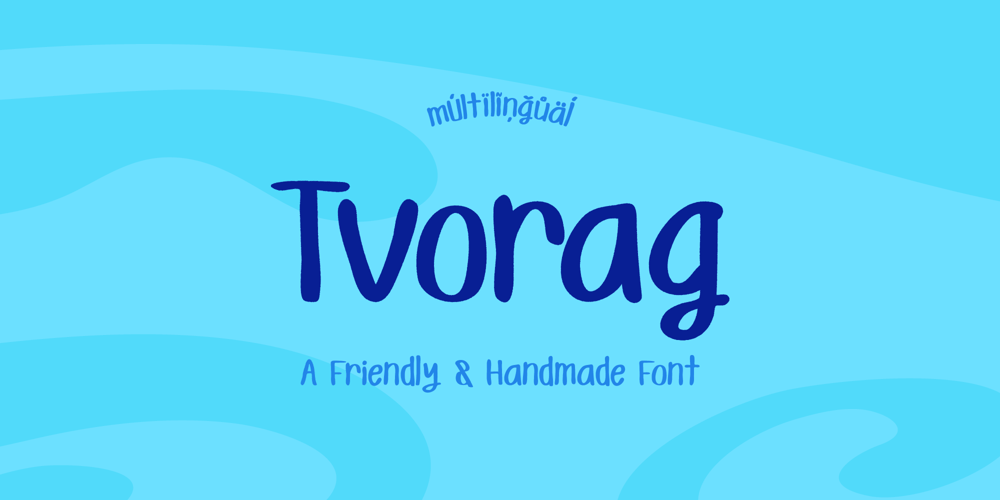
Tvorag Font Family was designed by Alper Çakıcı and published by Umka Type. Tvorag contains 1 styles and family package options. Font is a modern, versatile font with excellent kerning, making it ideal for both digital and print use. It features full support for the Cyrillic language, allowing for seamless multilingual communication. Font’s unique design combines classic proportions with a contemporary feel, making it stand out from other same categories fonts.It supports 93 Languages: Belarusian Russian Ukrainian Afrikaans Albanian Asu Basque Bemba Bena Breton Catalan Chiga Colognian Cornish Croatian Czech Danish Dutch Embu English Esperanto Estonian Faroese Filipino Finnish French Friulian Galician German Gusii Hungarian Icelandic Indonesian Irish Italian Kabuverdianu Kalenjin Kamba Kikuyu Kinyarwanda Latvian Lithuanian Lower Sorbian Luo Luxembourgish Luyia Machame Makhuwa-Meetto Makonde Malagasy Maltese Manx Meru Morisyen North Ndebele Norwegian Bokmål Norwegian Nynorsk Nyankole Oromo Polish Portuguese Quechua Romanian Romansh Rombo Rundi Rwa Samburu Sango Sangu Scottish Gaelic Sena Serbian Shambala Shona Slovak Soga Somali Spanish Swahili Swedish Swiss German Taita Teso Turkish Upper Sorbian Uzbek (Latin) Volapük Vunjo Walser Welsh Western Frisian Zulu